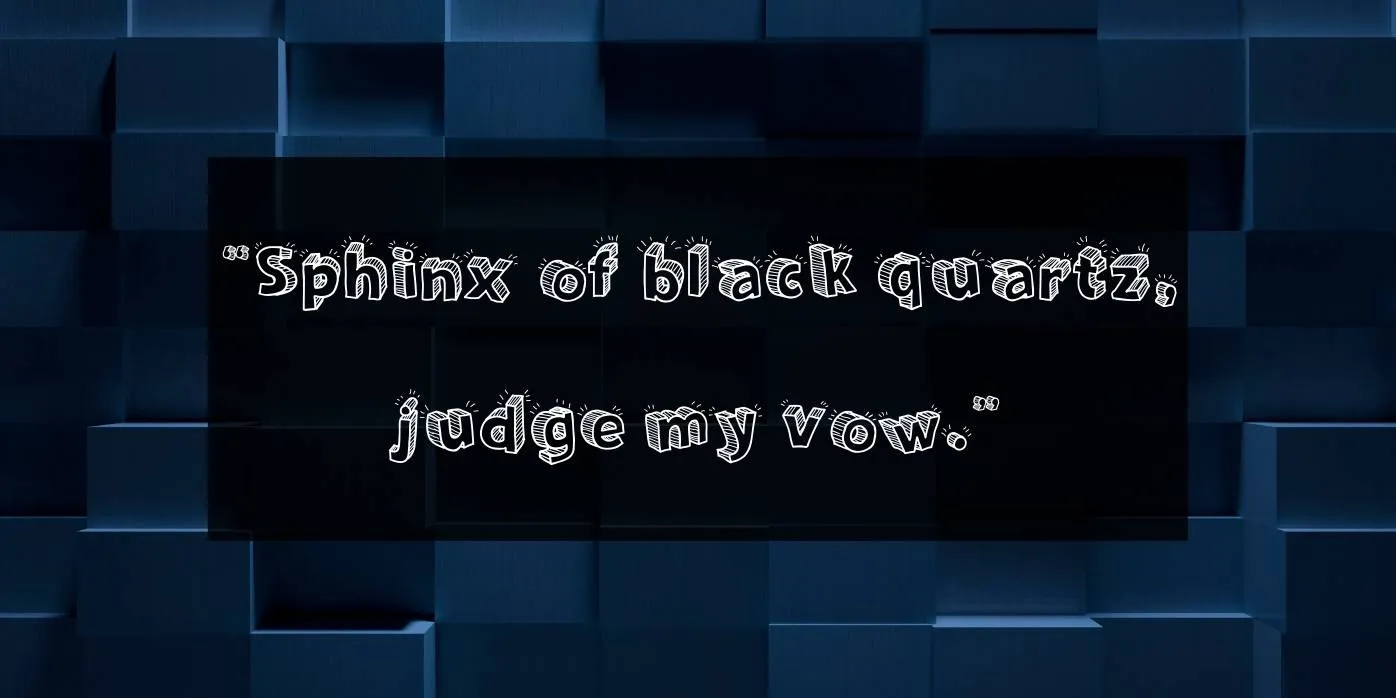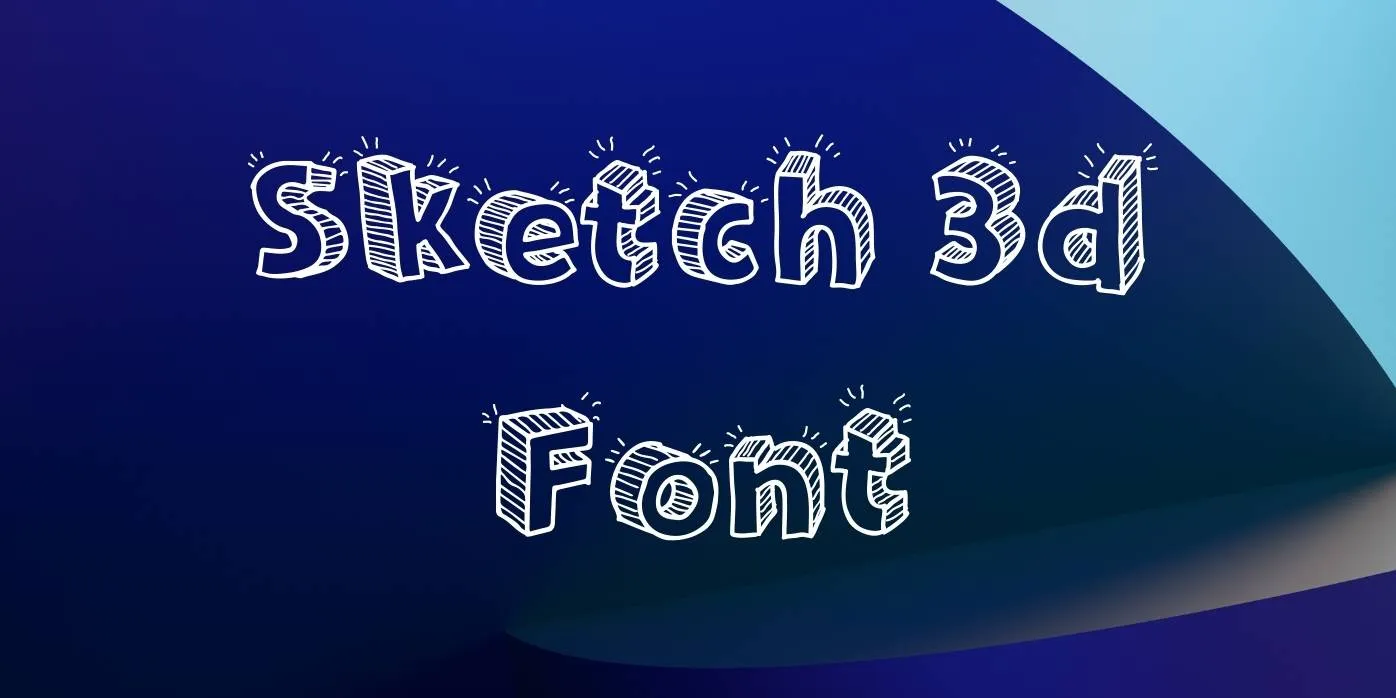
Sketch 3d Font
Here, we are going to present a very classic and marvelous typeface named Sketch 3d Font. This typeface belongs to Galdino Otten. It belongs to the 3d Font family. This stunning typeface is available in various 3d characters, also this cute font family includes more than 166 famous characters.
This tremendous typeface has 3D shape letters that are very classic and best for various designs. This gorgeous typeface comes in two extraordinary styles. Sketch 3d Font is also available in eight outstanding weights. All these weights and styles make this typeface worth appreciating in the design field.